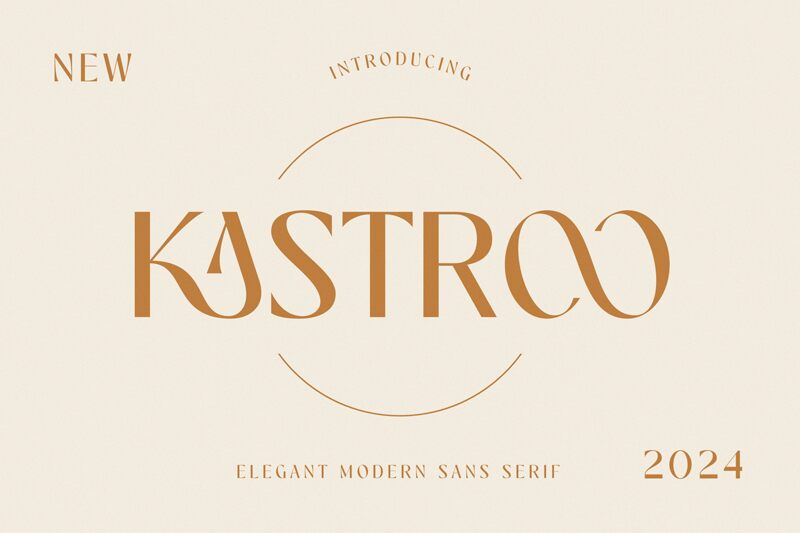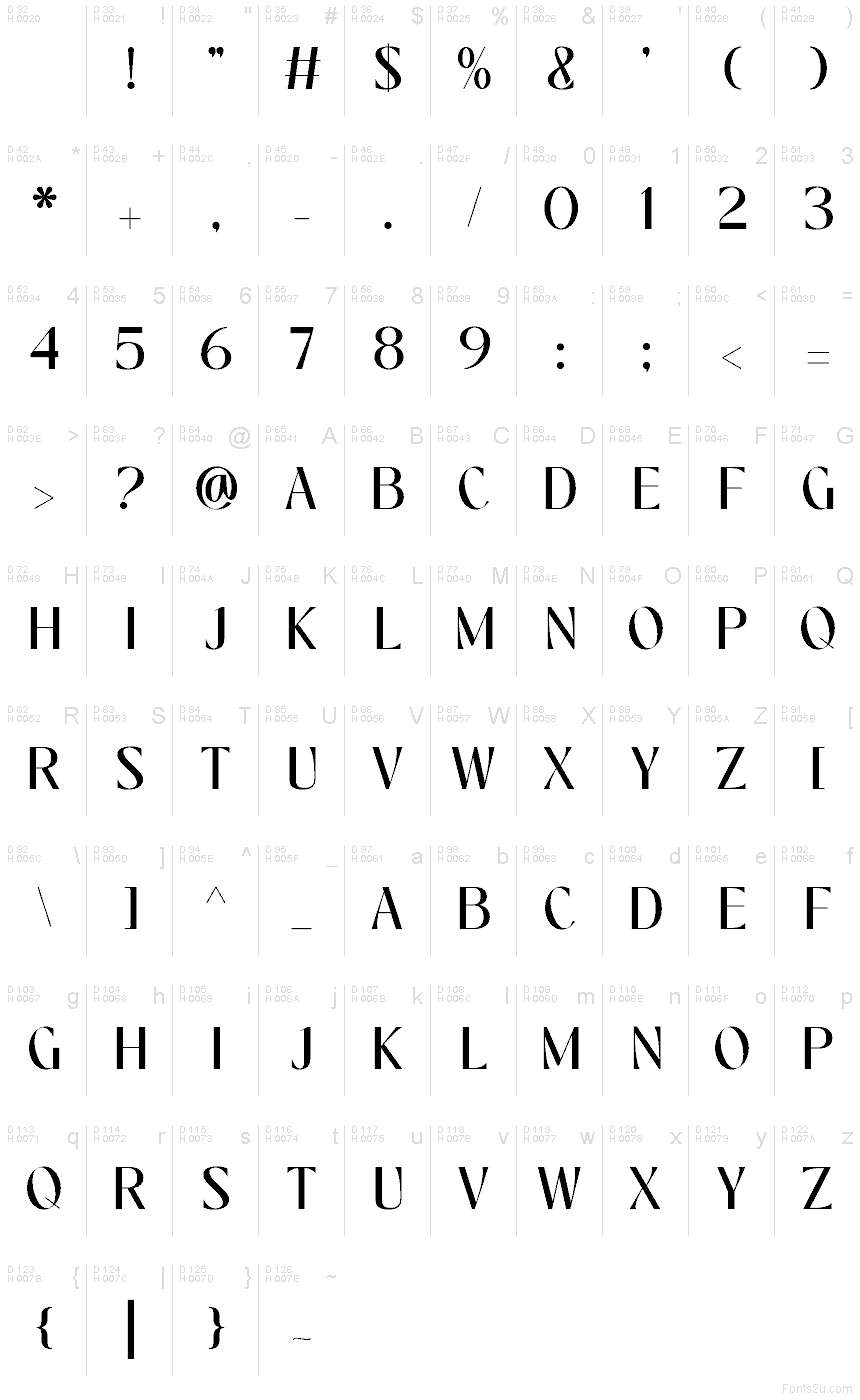
KASTROO
Kastroo font by Muflieart is a free fashion serif typeface. Its signature look comes from razor-edged wedges and smooth, sweeping curves that feel polished and deliberate, almost like ink pulled with a metal nib. Tall proportions and tight rhythm give headlines a cool, sculpted snap, while the fine details add a whisper of drama without turning fussy.
Using Kastroo, headlines and mastheads gain instant presence for luxury branding, beauty packaging, magazine covers, posters, invitations, and runway lookbooks. This free font shines when set large with a touch of tracking to let those elegant shapes breathe. Pair it with a quiet, modern grotesk for body copy to keep the spotlight where it belongs.